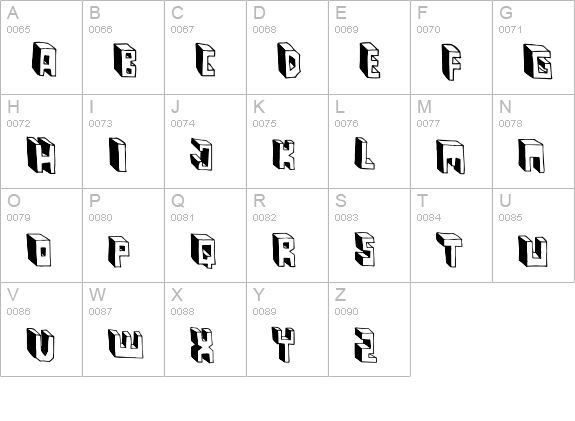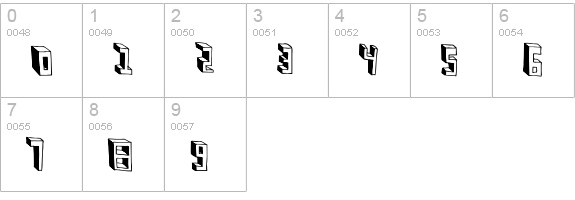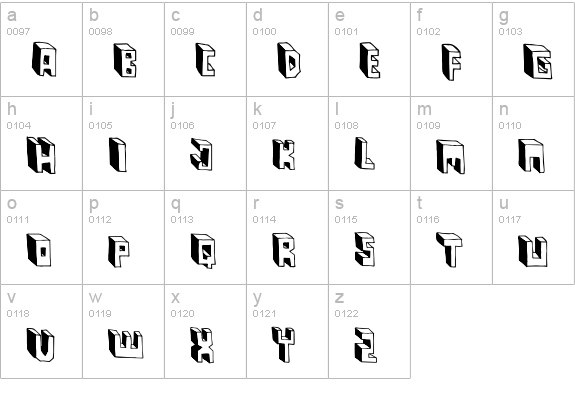
Pastas Black Font Details
Pastas Black is a maximum-weight, dramatic variant in the Pastas typeface family \xE2\x80\x94 well suited to maximum-impact headlines, posters, and packaging.
Pastas Black font is a modern and sleek typeface that exudes elegance and sophistication. With its bold and striking design, this font is perfect for creating eye-catching headings, titles, and logos. The clean lines and sharp edges of Pastas Black font make it ideal for projects that require a touch of contemporary style. The best part is that Pastas Black font is completely free to download at FontsMarket.com. Whether you're a designer looking to add a new font to your collection or a business owner in need of a fresh look for your branding, Pastas Black font offers a versatile and stylish solution. Don't miss out on the opportunity to enhance your projects with this stunning font that is just a click away. Download Pastas Black font today and elevate your designs with its modern flair.